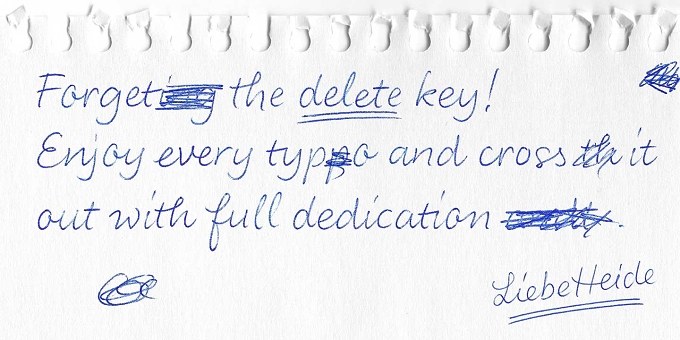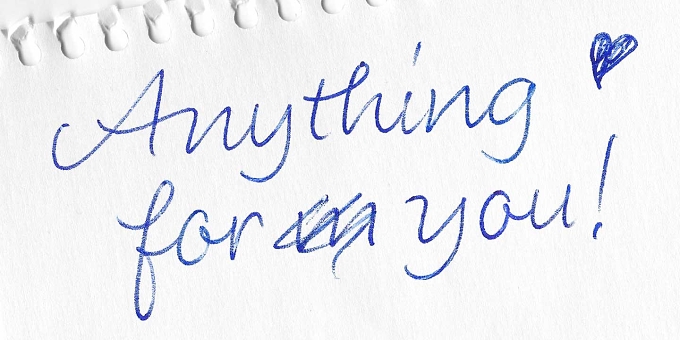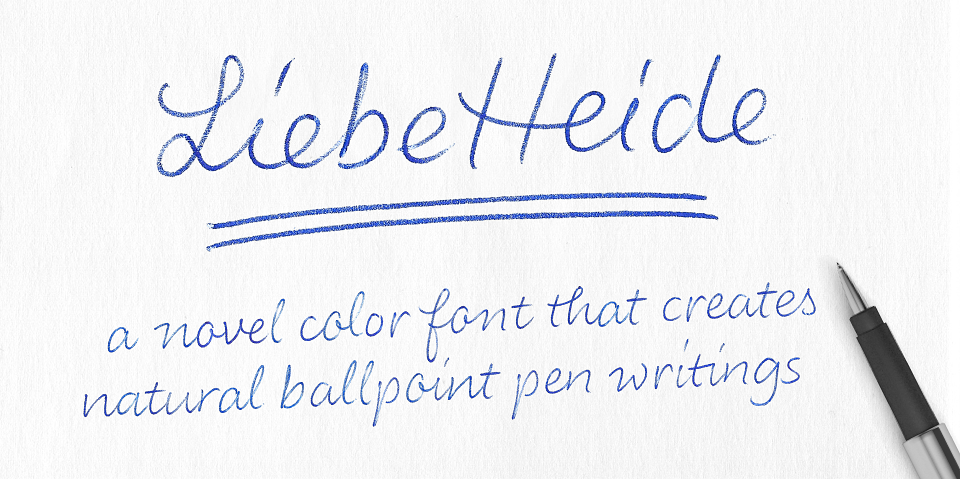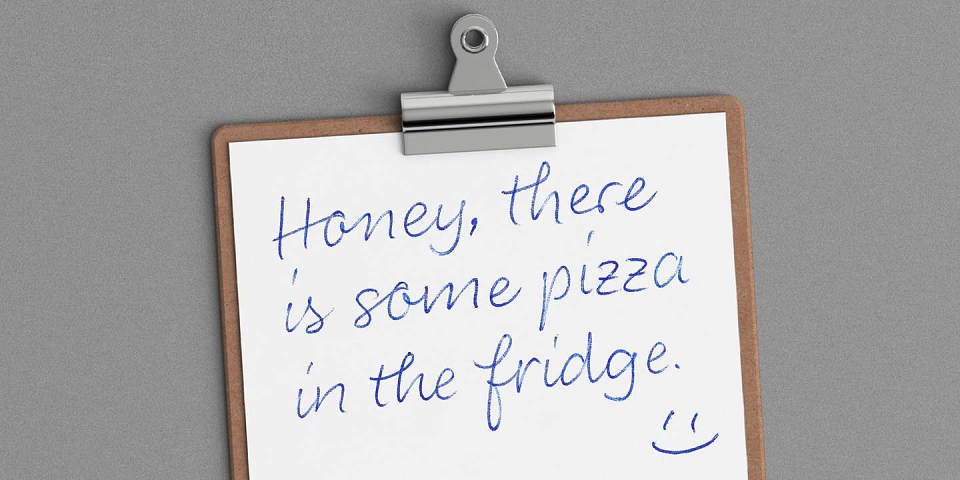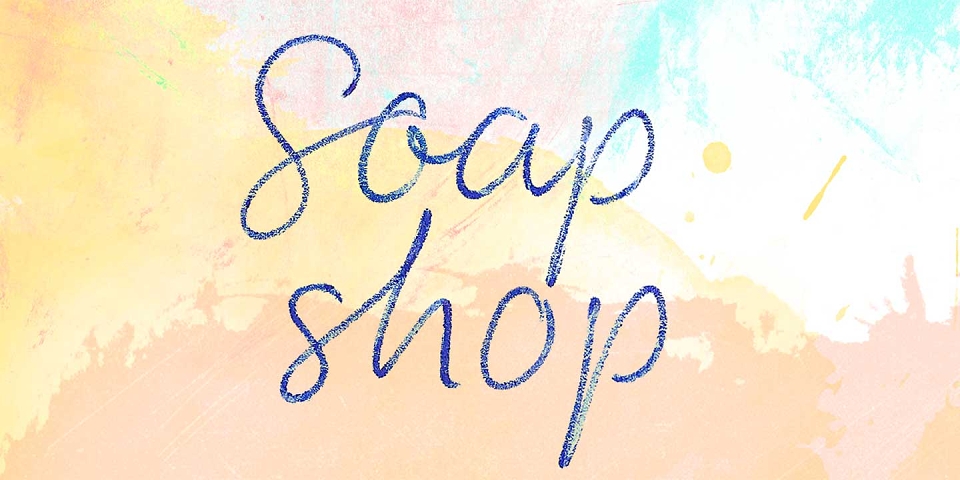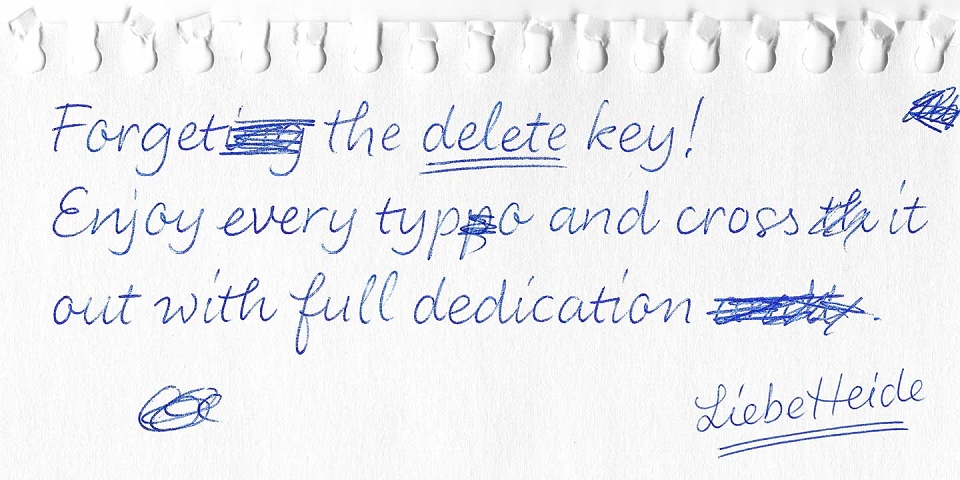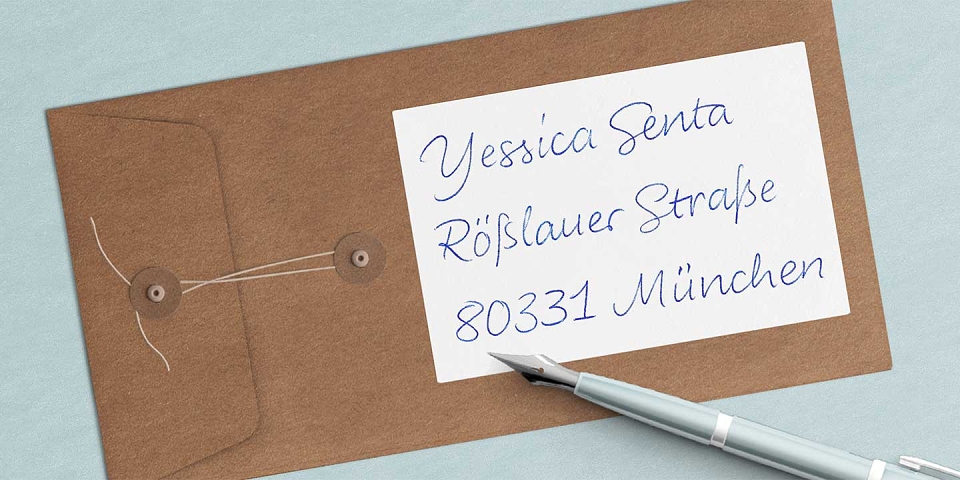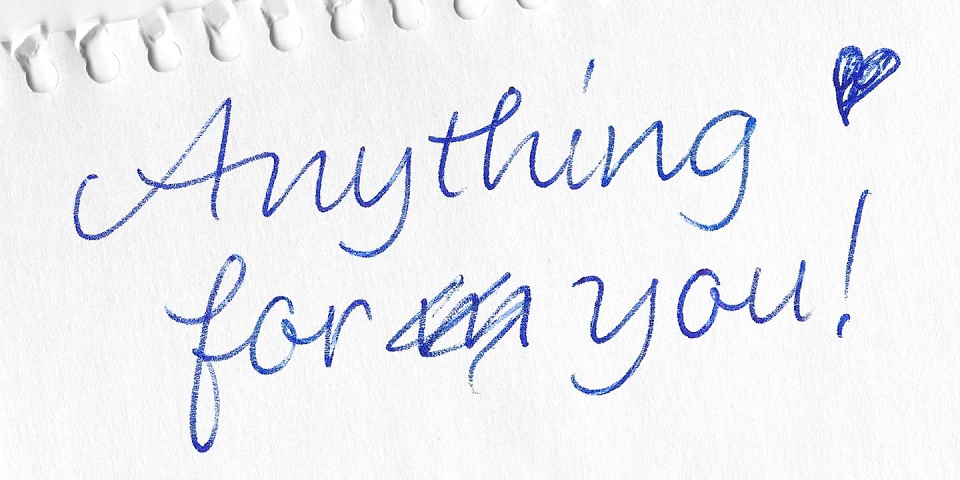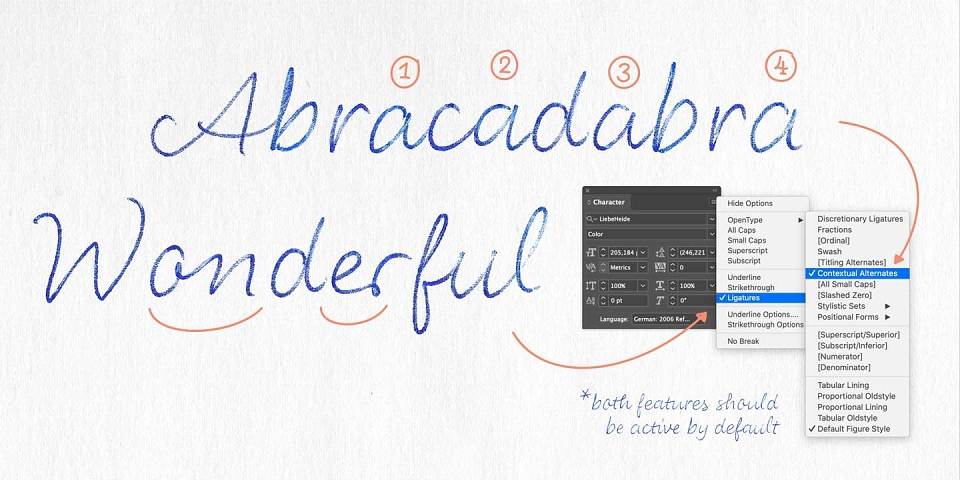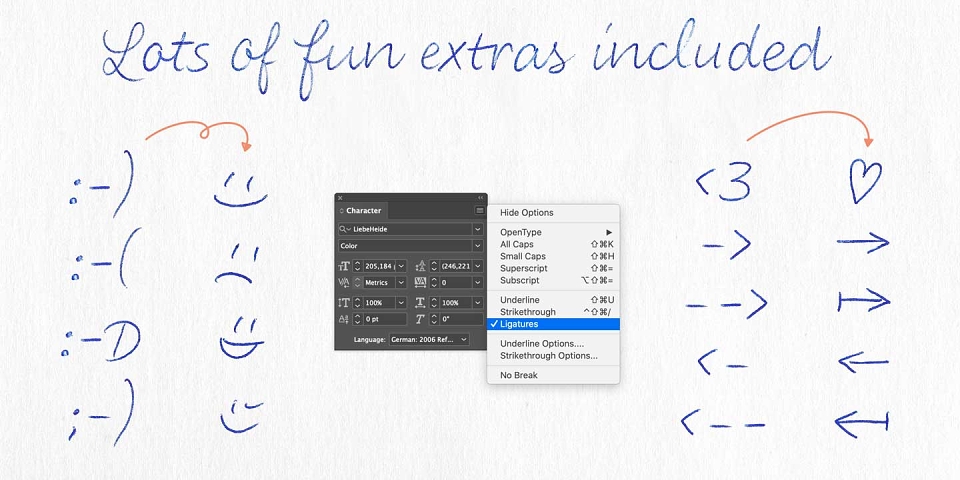
Amazingly real looking handwritten messages with LiebeHeide color font.
This new digital font not only contains the latest font technology but also years of lettering experience of its designer Ulrike Rausch. LiebeHeide is a digital script font that authentically reproduces the writing of a ballpoint pen. A combination of OpenType features and color font technology makes this typographic miracle possible.
LiebeHeide is based on high-res digitized ballpoint pen writings with lots of ligatures and alternate letters. Typical handwriting attributes like symbols and doodles, up to underlines and lots of strikethroughs give this typeface its charm. Most symbols are easily accessible because they assemble automatically, for example the heart from <3, a smiley face from :-) or arrows from -> and -->. In total LiebeHeide contains almost 500 glyphs.
LiebeHeide Color Font